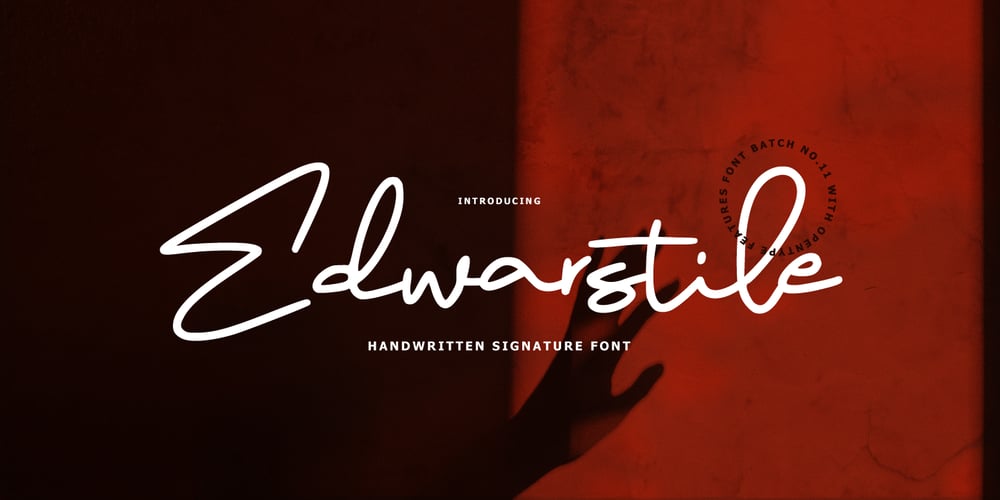
Edwarstile Signature
Edwarstile Signature font
Edwarstile Signature Font Family was designed by Dzulka Elfira and published by Tebaltipis Studio. Edwarstile Signature contains 1 styles and family package options. Edwarstile Signature with a handmade calligraphy style, decorative characters and a dancing baseline! So beautiful on invitation like greeting cards, branding materials, business cards, quotes, posters, and more!!Edwarstile Signature come with 200+ glyphs. The alternative characters were divided into several Open Type features such as Swash, Stylistic Sets, Stylistic Alternates, and Ligature. The Open Type features can be accessed by using Open Type savvy programs such as Adobe Illustrator, Adobe InDesign, Adobe Photoshop Corel Draw X version, And Microsoft Word. And this Font has given PUA unicode (specially coded fonts). so that all the alternate characters can easily be accessed in full by a craftsman or designer.Edwarstile Signature Features :Uppercase & Lowercase International Languange & Symbols Support Punctuation & Number PUA Unicode Range Standard Ligatures Discretionary Ligatures Stylistic Alternates Stylistic Set 01-02: